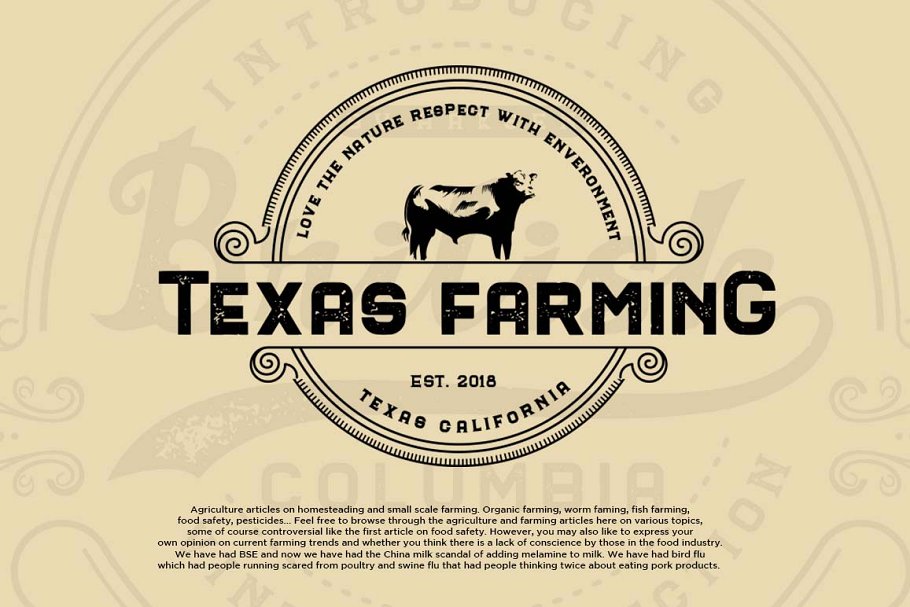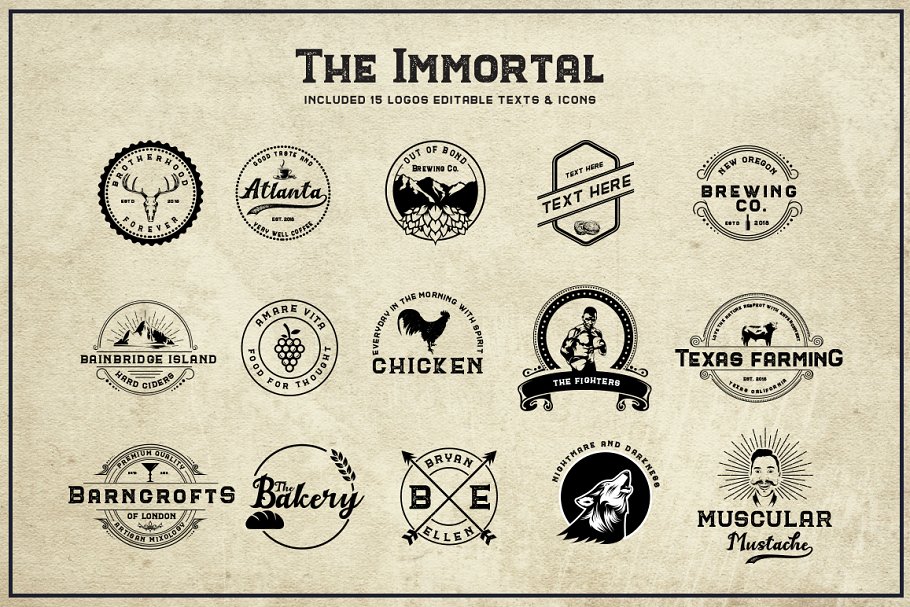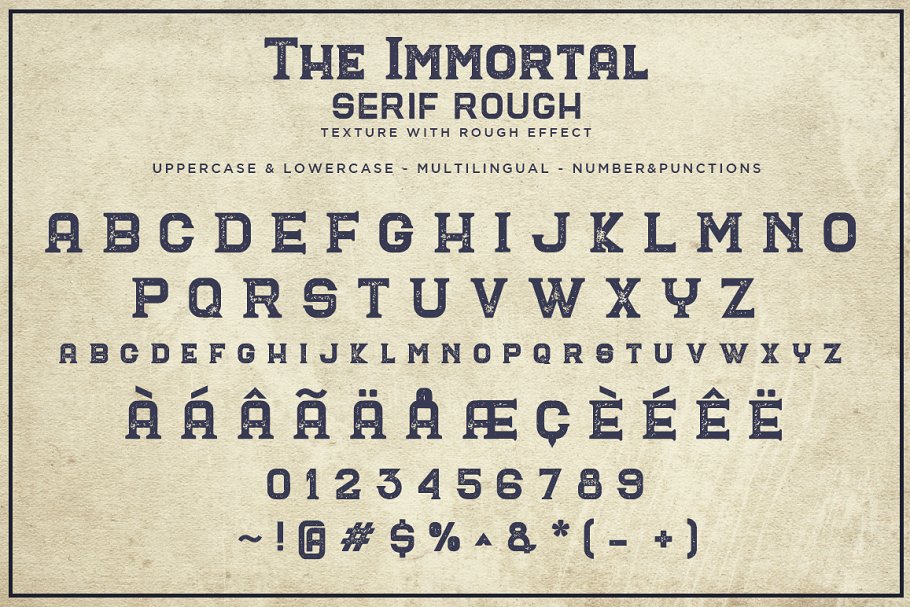
The Immortal Vintage Font
Hi designer. Introducing The Immortal Font. The fonts are inspired by vintage brick wall murals and they work perfectly for logo, packaging or title design with a hand crafted vibe. Furthermore the product contains a set of 15 editable logo templates for Adobe Illustrator (CS & CC) and over 18 hand drawn icons!! This makes logo & badge design easier than ever before.